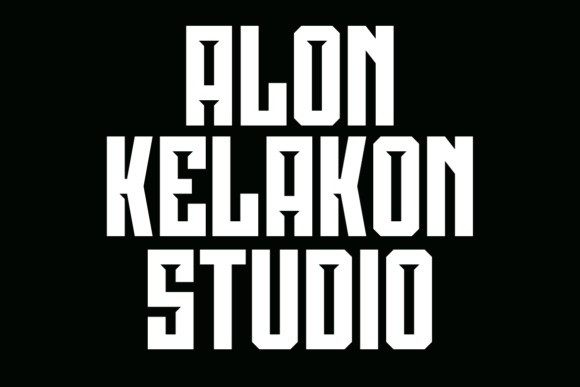
Black Roger Font
Black Roger Font is unique . Ready to use for your design like labeling, movie sceen, poster, movie title, gigs, album covers, logos, and much more.